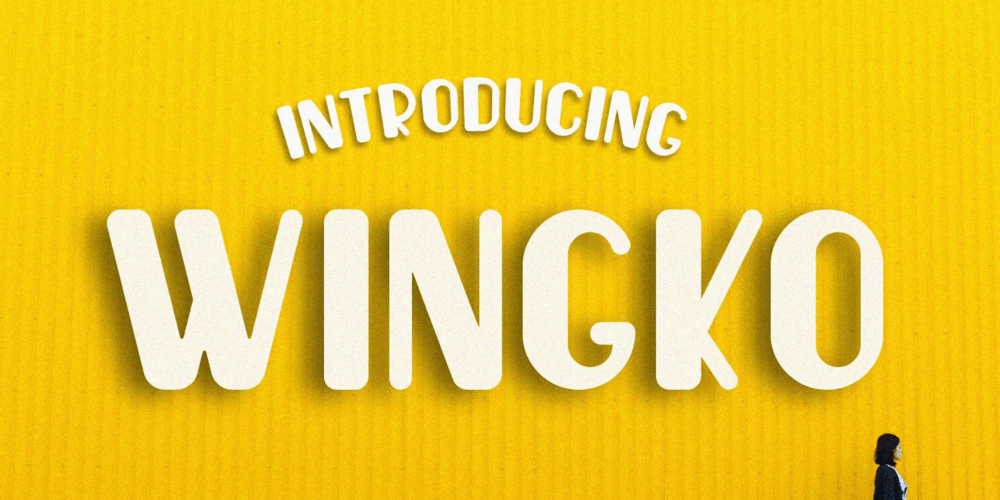
Wingko Font Family was designed by Irpan Maulana and published by Sabrcreative. Wingko contains 1 styles and family package options. Introducing Wingko font, a delightful and versatile display sans serif typeface that will elevate your designs with its clean and fun style. Whether you’re working on quotes, headlines, crafts, or any creative project, Wingko is here to add a touch of charm and playfulness.With its simple and clean design, Wingko offers a contemporary aesthetic that is both eye-catching and readable. The combination of uppercase and lowercase letters provides creative flexibility, allowing you to experiment with different layouts and styles. The inclusion of numbers and punctuation ensures seamless integration with various design elements.One of the notable features of Wingko font is its multilingual support, making it accessible to a wide range of languages and global audiences. From English to French, German to Spanish, and beyond, your message can be beautifully communicated in different parts of the world.Wingko font is designed with attention to detail, ensuring legibility and visual appeal across different mediums. Whether you’re designing digital content, print materials, logos, or social media graphics, this font will captivate your audience and leave a lasting impression.Embrace the versatility of Wingko font and let your creativity soar. Download this clean and fun display sans serif typeface today and infuse your designs with a touch of character and whimsy.